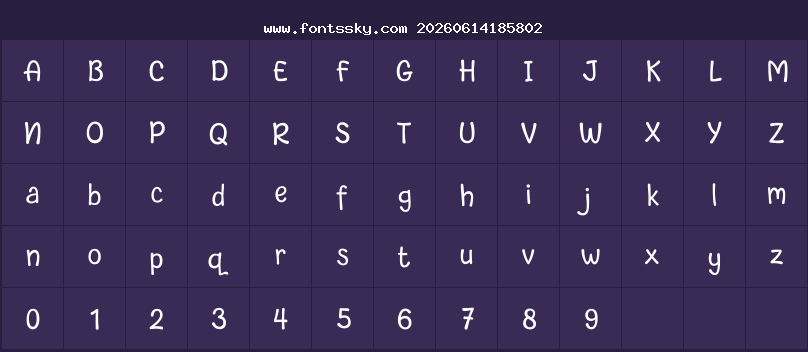
• Font Name: Cute Aurora
• Full Font Name: Cute Aurora
About Cute Aurora.ttf
Cute Aurora.ttf is a modern, elegant sans-serif font designed for ultimate readability and visual harmony. Perfect for branding, headlines, web design, and print materials.